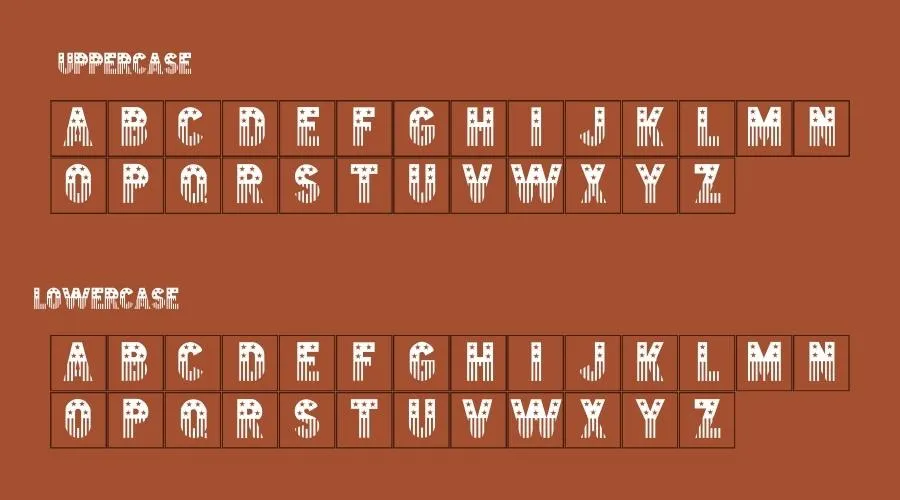
Stars and Stripes Font
About Stars and Stripes Font
The Stars and Stripes Font is a fantastic fancy texture family with a unique type style that depends on your project's look. This font was developed by a famous graphic author named James Fordyce. The subfamily of this texture is regular.
The Stars & Stripes includes multiple types of characters such as uppercase letters, signs, digits, symbols, and punctuations.